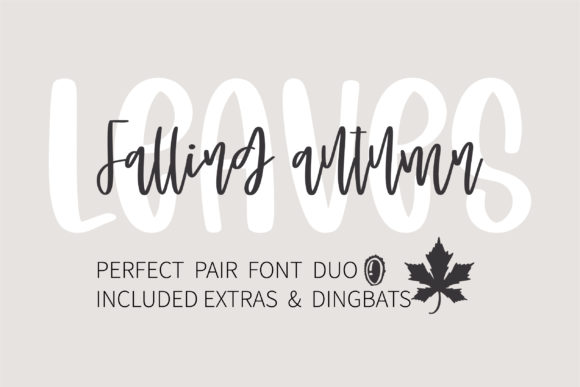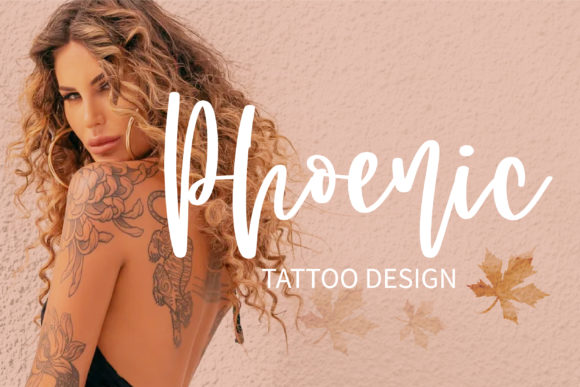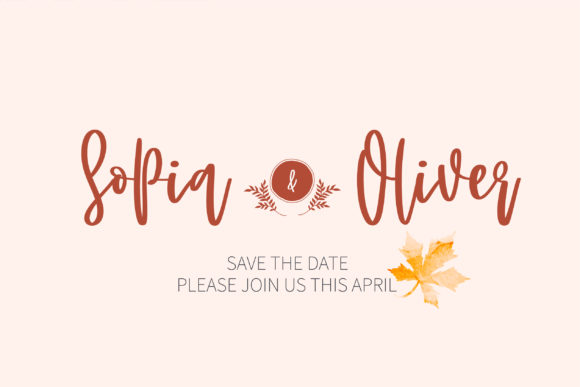
About Falling Autumn Leaves Font
Introducing “Falling Autumn Leaves,” a sweet and relaxed handwritten font that captures the essence of the beautiful fall season. Its charming style exudes a sense of warmth and coziness, making it the perfect font to fall in love with. Embrace its incredible versatility and watch as it adds a touch of magic to your designs, allowing you to create stunning works of art for a wide range of creative projects!
With “Falling Autumn Leaves,” you can infuse your wedding invitations with a sense of romance and nostalgia. Its relaxed and handcrafted feel sets the perfect tone for an intimate and heartfelt celebration. Whether it’s an outdoor wedding surrounded by nature’s beauty or an indoor gathering with rustic charm, this font effortlessly complements your vision, making each invitation a true reflection of love and joy.
Beyond weddings, “Falling Autumn Leaves” shines on beautiful stationary art. Create stunning greeting cards that express gratitude and love, or design art prints that capture the spirit of the season. Its handwritten charm adds a personal touch to each piece, leaving a lasting impression on the recipient and making your creations unforgettable.
When it comes to social media, “Falling Autumn Leaves” becomes your go-to font for eye-catching posts that resonate with your audience. Share inspiring quotes, announce exciting news, or promote your brand with ease. The font’s relaxed and sweet style attracts attention and creates a warm and welcoming atmosphere for your followers.
The versatility of “Falling Autumn Leaves” knows no bounds. Its legible and inviting characters make it suitable for various design applications. From website graphics to event posters, this font elevates your creations, infusing them with the natural beauty of the fall season.
So, immerse yourself in the enchantment of “Falling Autumn Leaves” and let it be your creative companion. Embrace its sweet and relaxed handwritten magic as it brings your designs to life, filling them with the spirit of autumn. Whether you’re a seasoned designer or a passionate enthusiast, this font empowers you to create gorgeous visuals that capture the heart and soul of this beautiful time of year. Fall in love with “Falling Autumn Leaves” and embark on a journey of creativity and inspiration!